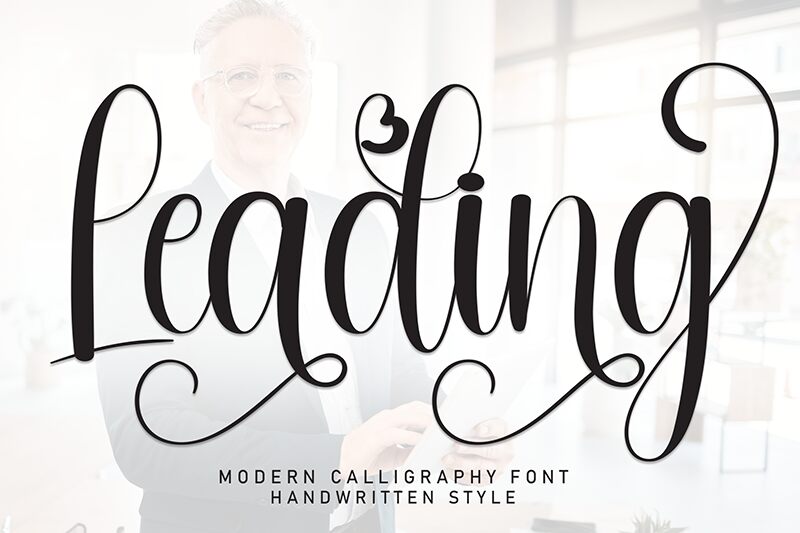
Leading
Leading font, designed by Andi Moz, is a free calligraphy font that embodies elegance and modernity. Its condensed form gives it a sophisticated appearance while still maintaining an artistic flair. Expressive and flowing, Leading is visually captivating with refined strokes bringing an elegant outline for each character.
The natural legibility of the typeface makes it ideal for advertising campaigns and product packages. The expressive ends of its condensed strokes invite all designers wishing to work with typography as a decorative tool to make use of the displayed letters even in magazines, newspapers, websites, posters, and thumbnails.